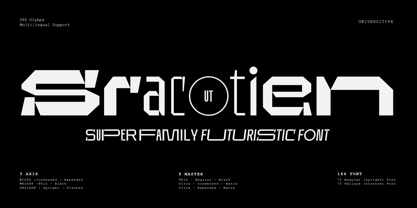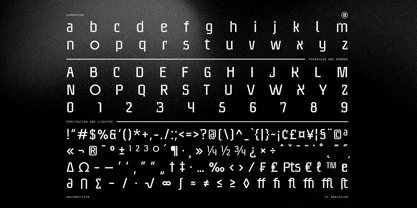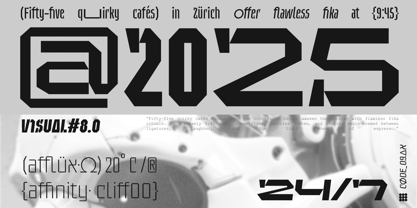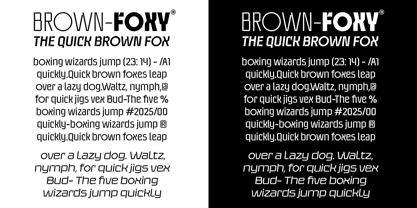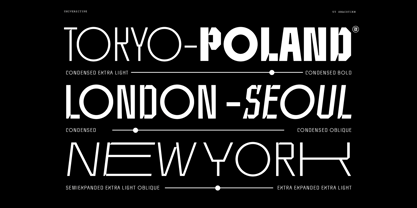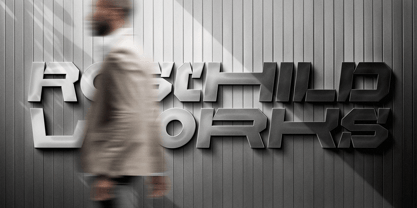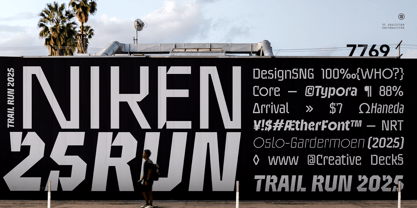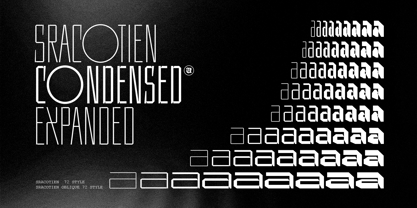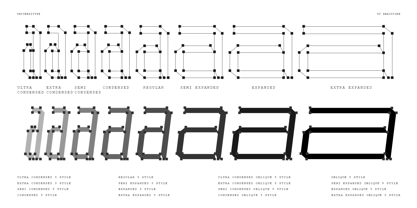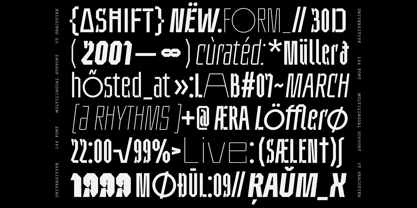
UT Sracotien
The UT Sracotien Font Family was designed by Muh. Aswar and published by Universitype. UT Sracotien contains 144 styles.
UT Sracotien : A Modern Futuristic Super Family Font
UT Sracotien is a versatile and modern superfamily font designed for contemporary digital and print applications. This font family offers a unique blend of futuristic and geometric aesthetics, making it an ideal choice for a wide range of creative projects. With its robust character set and extensive style options, UT Sracotien is perfect for designers looking for a font that can adapt to various design needs while maintaining a consistent and professional look.
Key Features:
1. Multilingual Support: UT Sracotien supports a wide range of languages, making it suitable for global audiences.
2. Variable Font Technology: This font utilizes variable font technology, allowing designers to adjust weight, width, and obliqueness dynamically.
3. Extensive Style Options: The font family includes 9 master styles ranging from Thin to Black and from Condensed to Expanded, providing a total of 144 distinct font styles.
4. High Glyph Count: With 388 glyphs, UT Sracotien covers a broad spectrum of typographic needs.
5. Readability and Versatility: The font is designed for high readability across various sizes and applications, from small text to large headings.
Font Inspiration:
UT Sracotien draws its inspiration from the intersection of modern architecture and digital technology, two fields known for their sleek, clean lines and minimalistic approach. The font’s geometric shapes and structured form reflect the precision and order found in architectural designs, where every element has a purpose and contributes to the overall aesthetic and functionality. This influence is evident in the font’s strong, bold lines and its ability to command attention, making it an excellent choice for headings and titles where impact is crucial.
Moreover, the inspiration from digital technology is seen in the font’s futuristic appeal, which resonates with the ever-evolving landscape of the digital world. The design embodies the essence of innovation and the constant push towards the next big idea, much like the rapid advancements in technology. UT Sracotien’s versatility in various weights and styles mirrors the adaptability required in the tech industry, where designs must be scalable and flexible to fit different contexts and platforms.
Usage:
• Digital Media: Ideal for websites, apps, and digital advertising where a modern and sleek look is desired.
• Print Design: Suitable for magazines, brochures, posters, and books where a strong visual impact is necessary.
• Branding and Identity: Perfect for creating a unique brand identity that stands out in a competitive market.
• Packaging Design: Enhances the visual appeal of product packaging with its distinctive and eye-catching styles.
Target Audience:
• Graphic Designers: Professionals who need a reliable and adaptable font for various design projects.
• Branding Agencies: Agencies looking to create memorable and impactful brand identities.
• Digital Media Creators: Content creators who require a font that performs well across digital platforms.
• Publishers and Editors: Those involved in print media who need a font that offers both style and readability.
Technical Details:
• Glyphs: 388
• Axes: Width (Condensed – Expanded), Weight (Thin – Black), Oblique (Upright – Slanted)
• Master Styles: 9 (Thin, Regular, Black, Ultra Condensed, Extra, Ultra Expanded, Extra)
• Font Styles: 144 (including Regular and Oblique options)